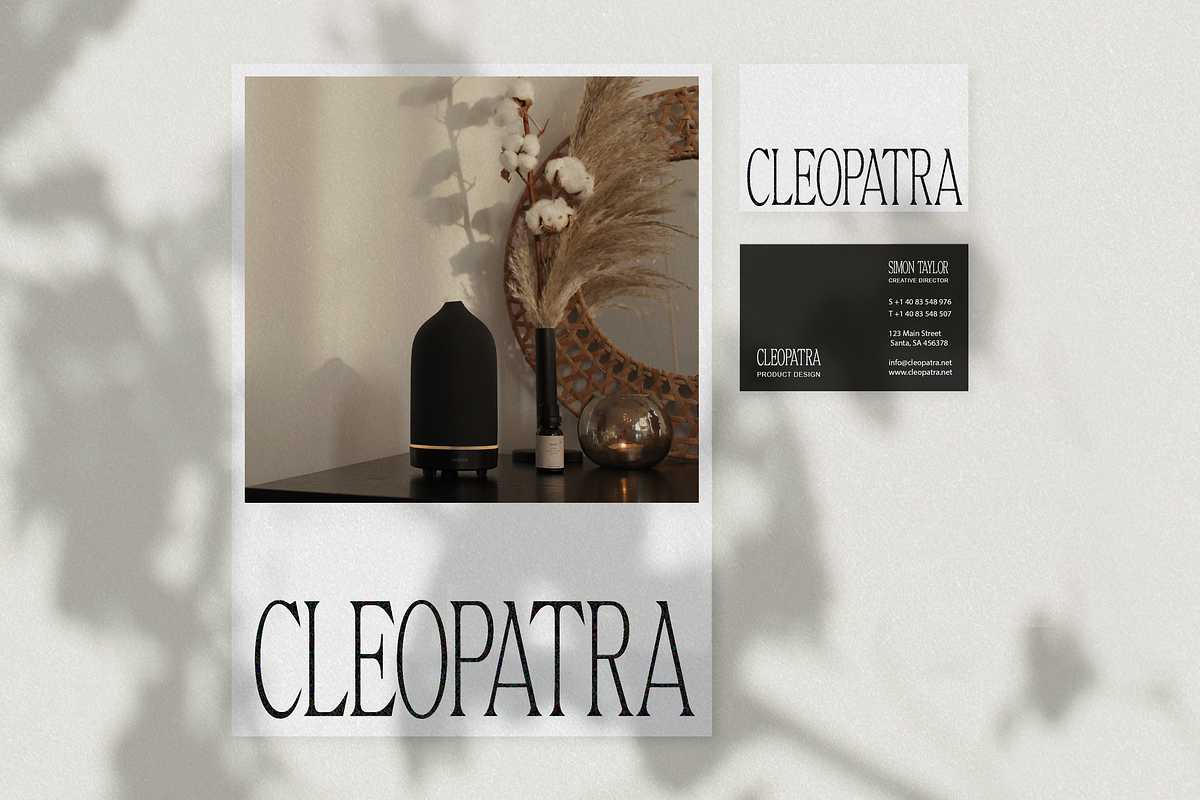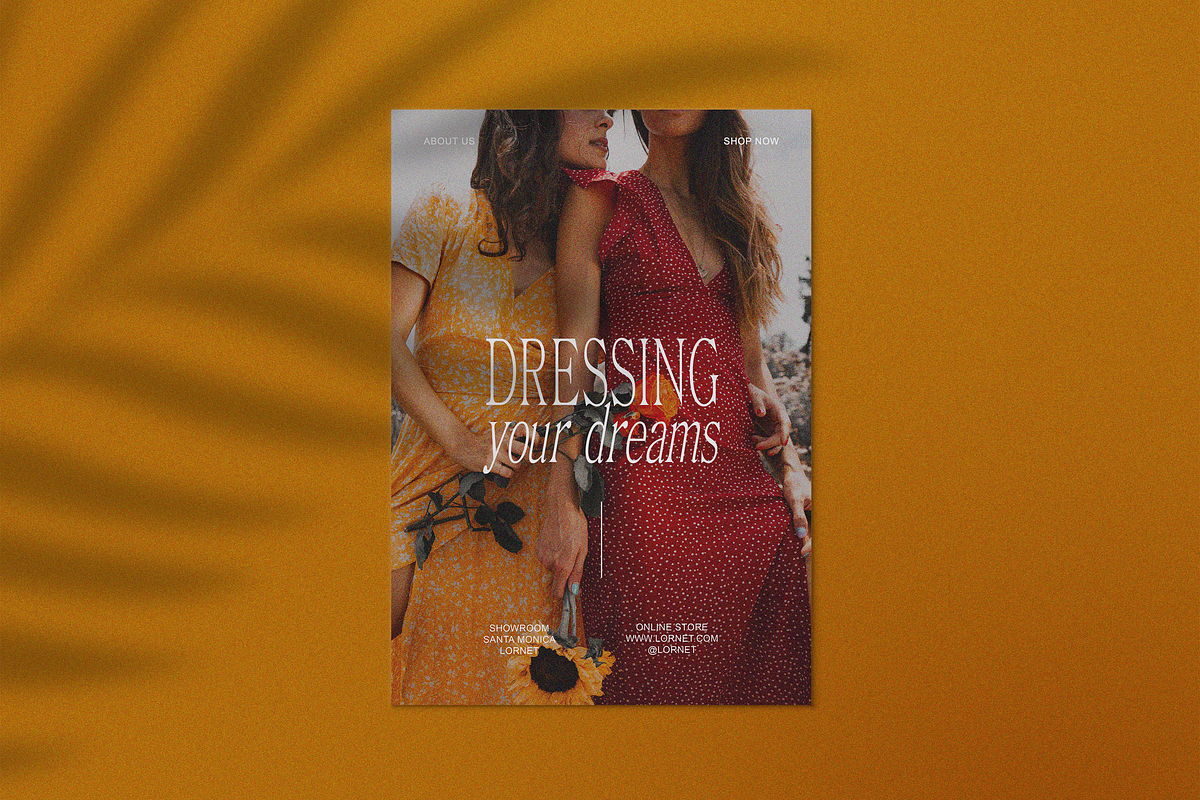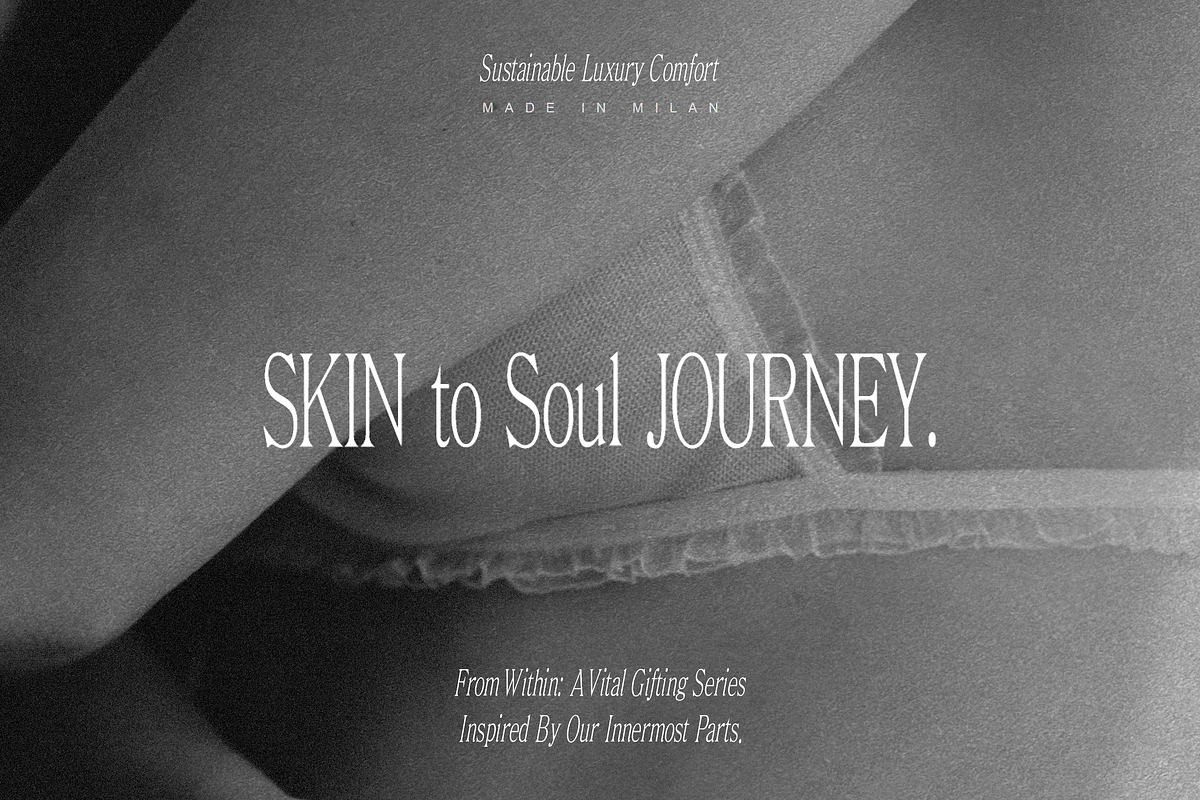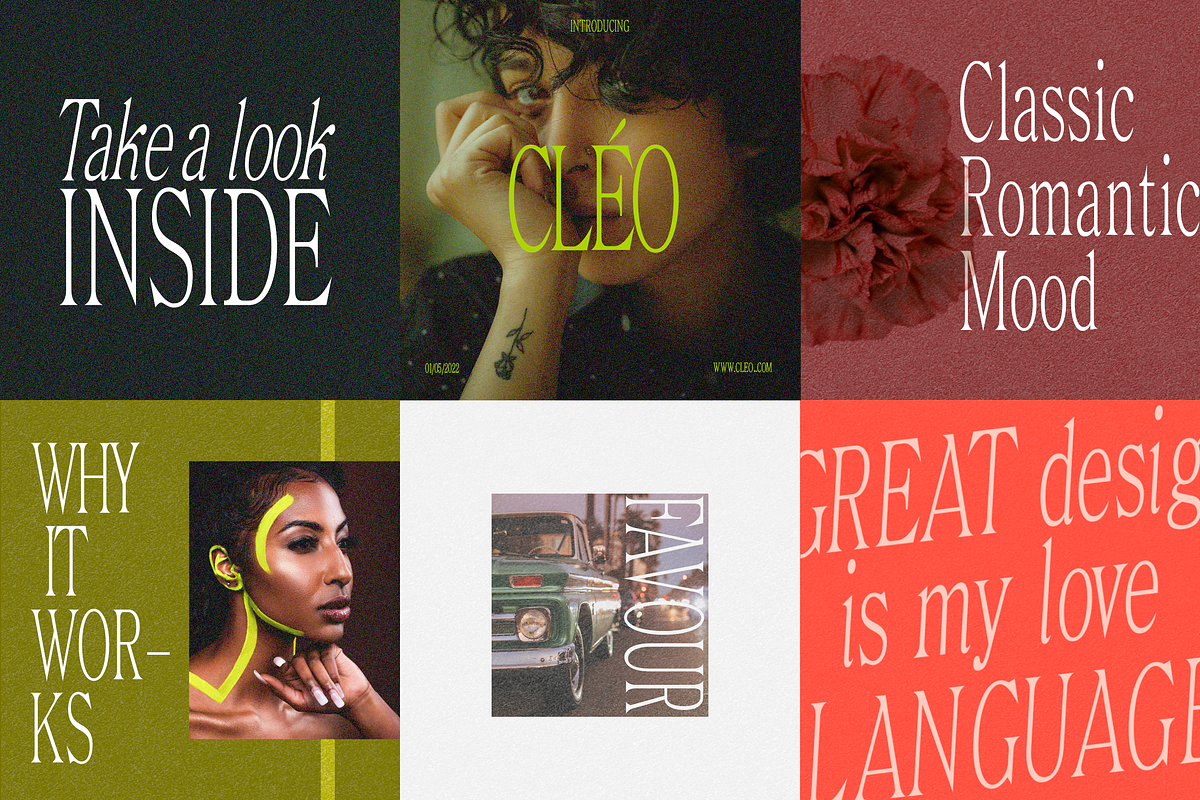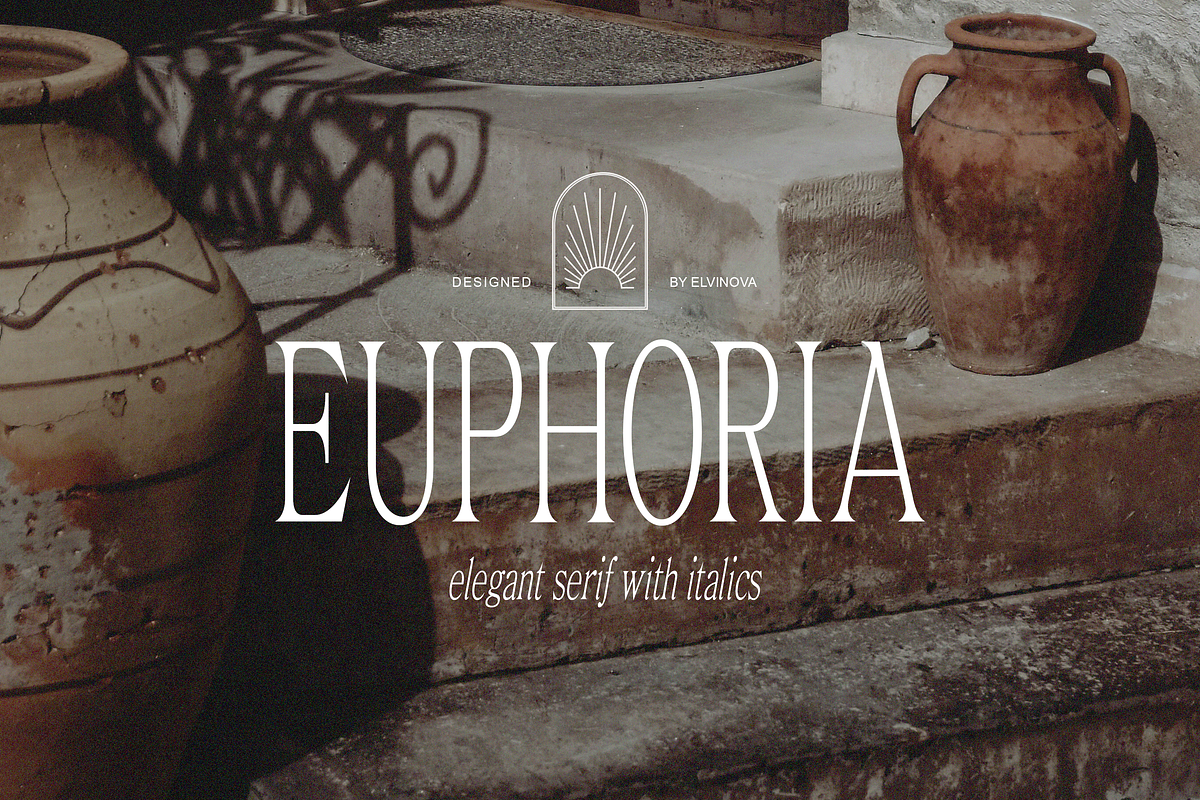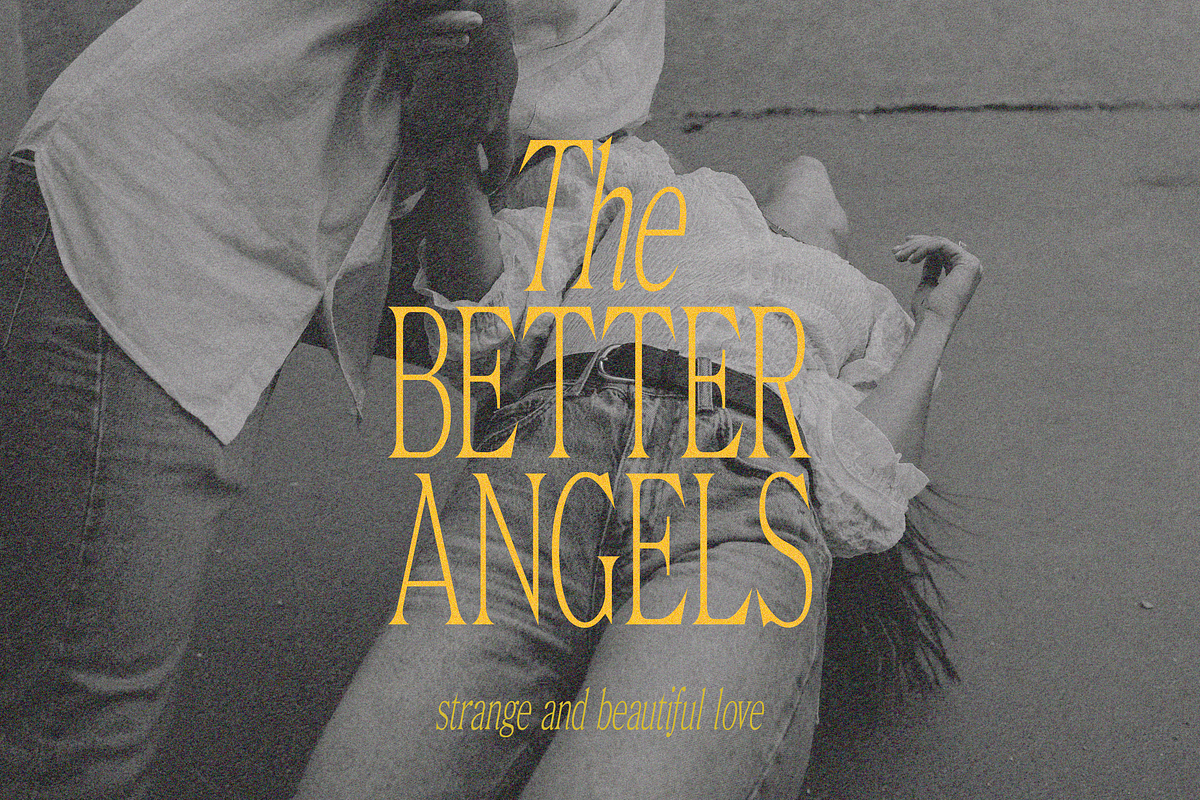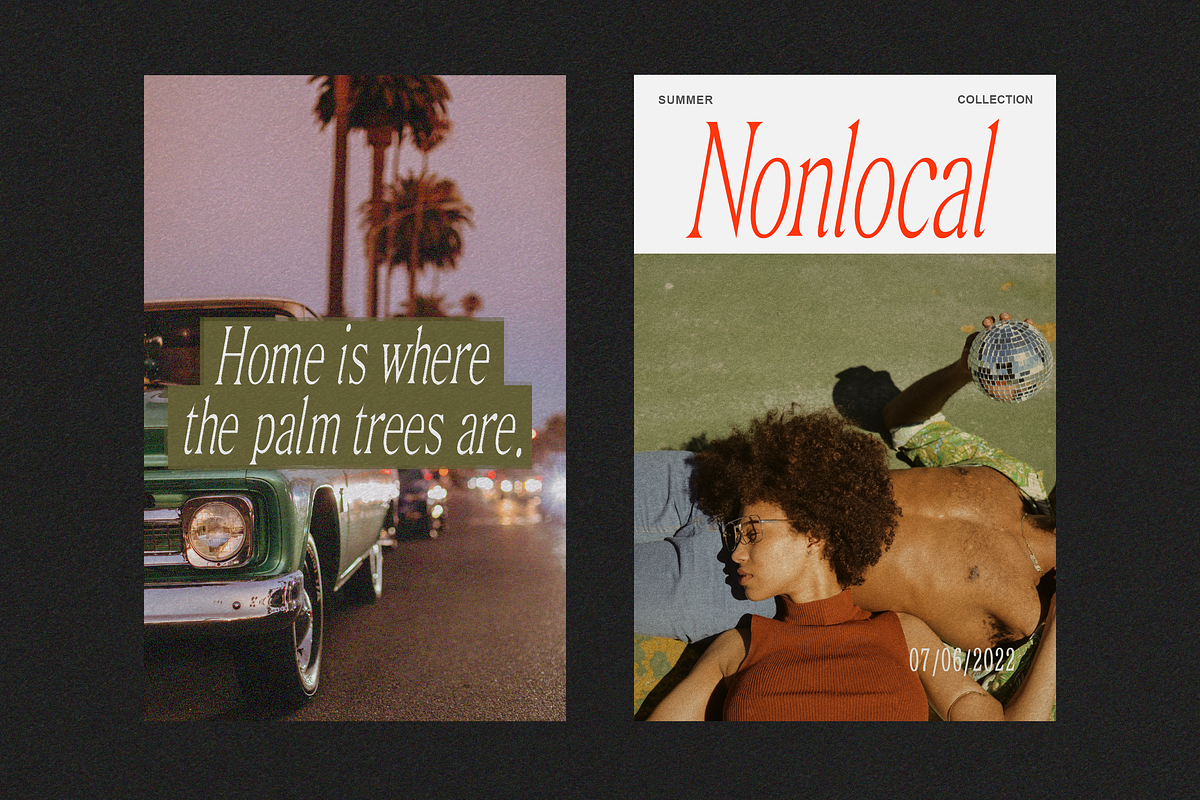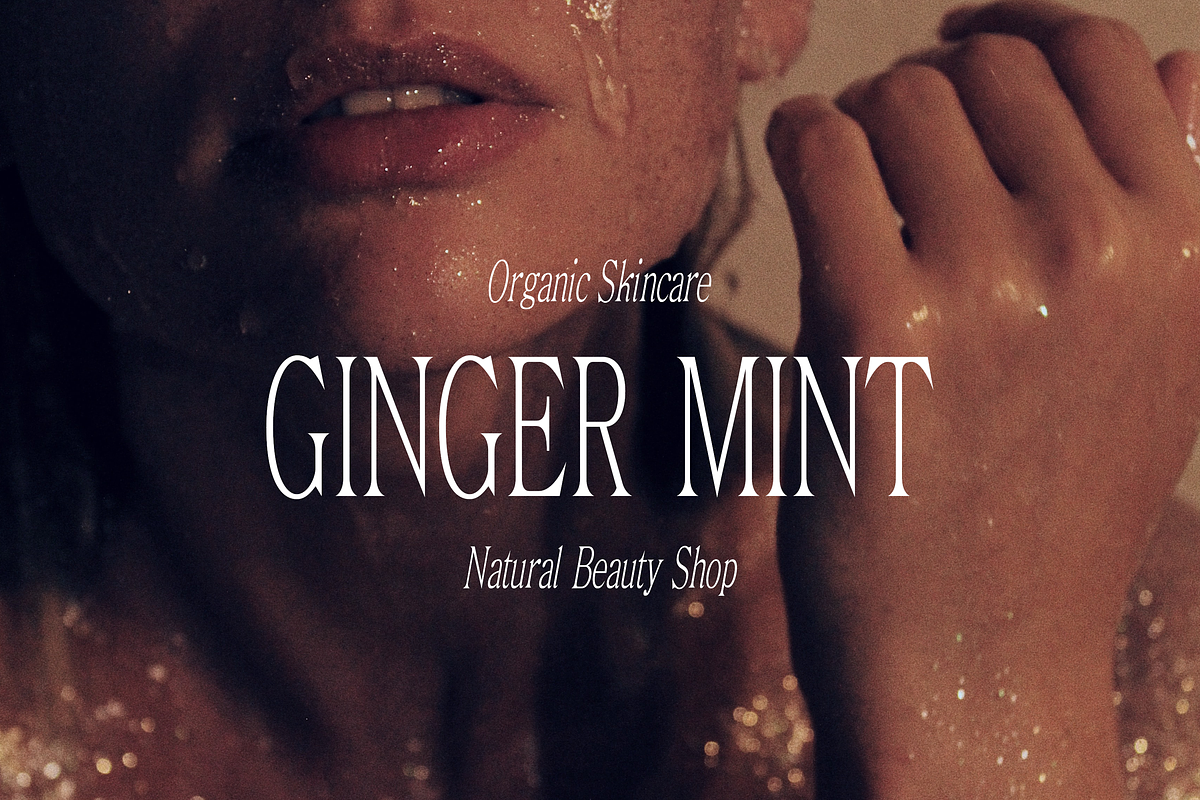
Euphoria Serif
Euphoria is timeless, classic, and adorned with sharply cut serifs. This font is quite minimal, and so the italic version of the font marvelously complements its character and gives it a luxurious nostalgic vibe.
- Upper/lowercase, numbers, punctuations;
- Regular, Italic.